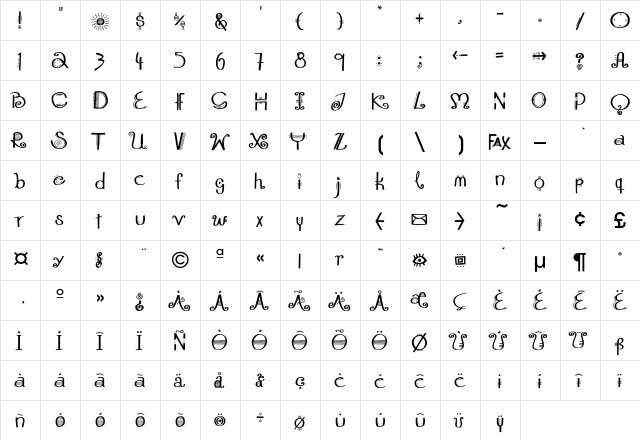
MonterreyEF Regular
Design Context for MonterreyEF Typeface
MonterreyEF is a composed and adaptable typeface that performs quietly and consistently across a wide range of design contexts.